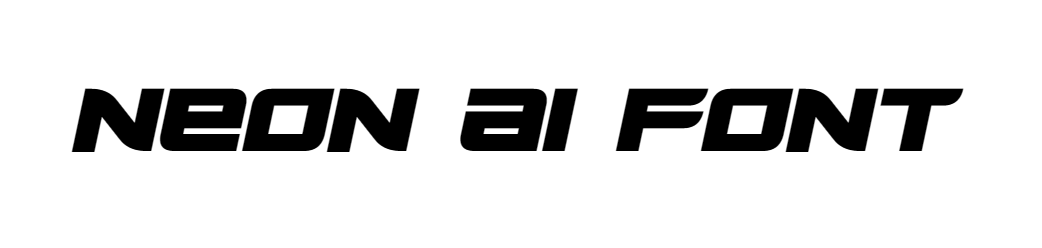
Dodger Fonts
Dodger Fonts is a sci-fi font created by Daniel Zadorozny (2024). Sleek, futuristic shapes make it look like it came from a space movie or a game screen. The free download includes seven styles, and you can try every one of them with your own text in the preview above.
- Designer: Daniel Zadorozny
- Category: Sci-fi font
- Font styles: 7 (Regular, Condensed, Expanded, Italic, Condensed Italic, Expanded Italic and Semi-Italic)
- Glyphs: 222 in the Regular style
Dodger Fonts covers the full alphabet in upper and lowercase, plus all ten numbers, so you can set names, dates and prices without switching fonts. Everyday marks like &, !, ? and @ are there too. Thanks to its accented letters, it also works for Spanish, French, German, Portuguese and Italian, not just English.
Designers usually reach for fonts like Dodger Fonts when they're making sci-fi movie titles, gaming logos and tech posters. It looks great with glowing effects, neon colors or a dark background. Because the family has more than one style, you can mix them in a single design for headings, subheadings and highlights.
Dodger Fonts was designed by Daniel Zadorozny. The copyright line inside the font is dated 2024. DafontStyle has 91 more fonts by Daniel Zadorozny, and a few are linked above.
Yes. Dodger Fonts includes the accented letters needed for Spanish, French, German, Portuguese and Italian, so it works for more than just English.
What fonts pair well with Dodger Fonts?
A clean geometric sans serif like Exo or Roboto works well for smaller text.